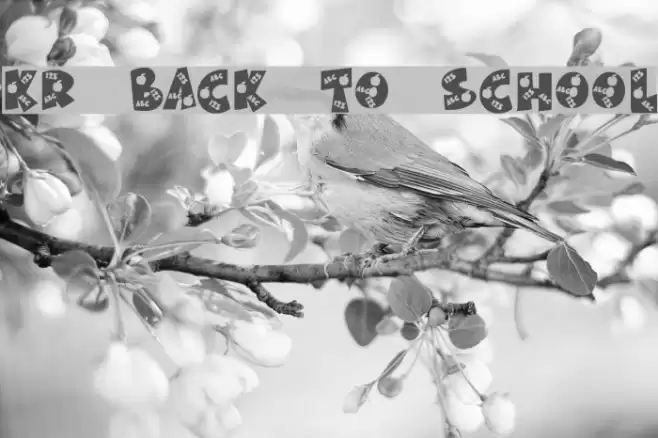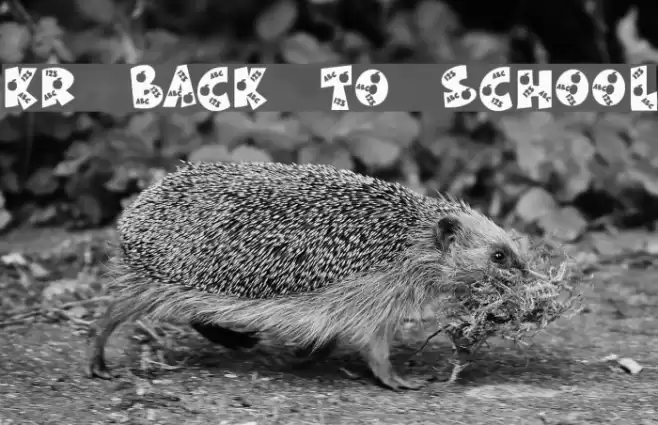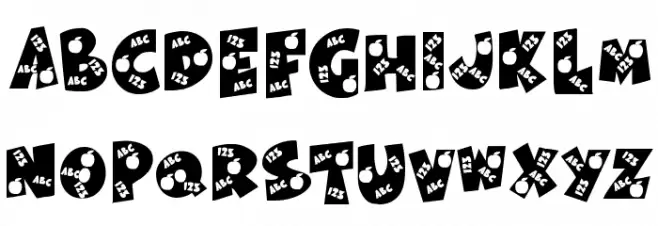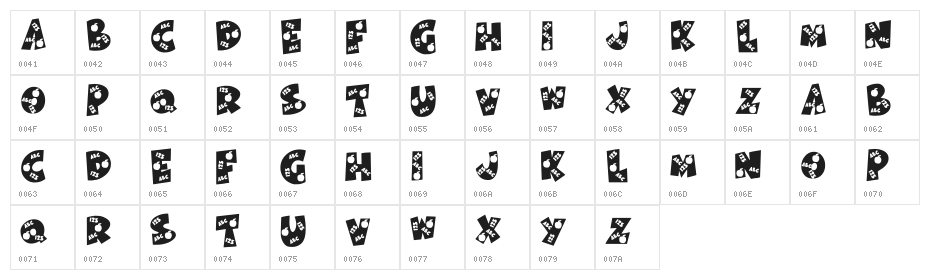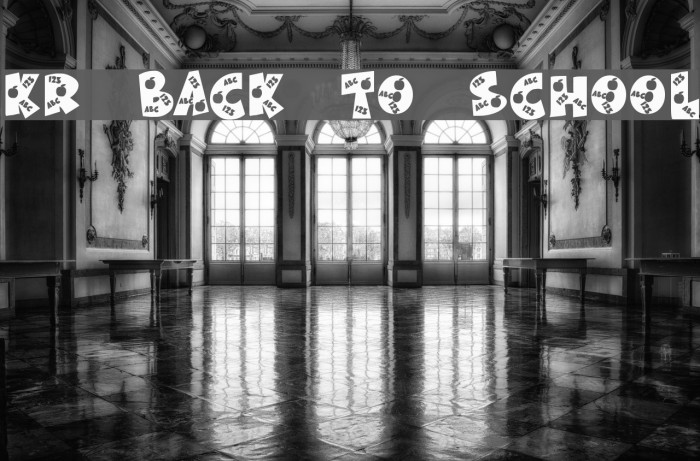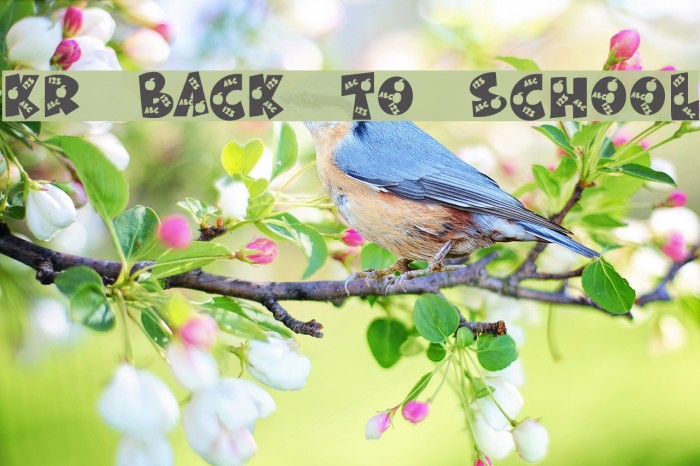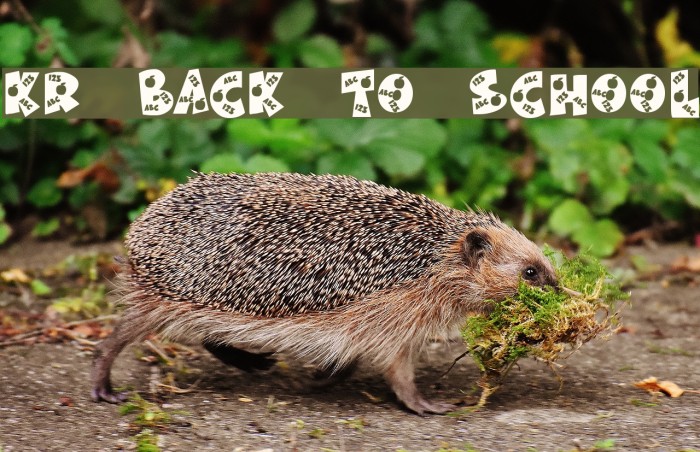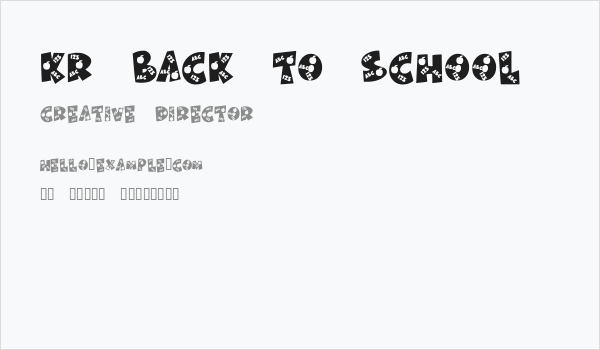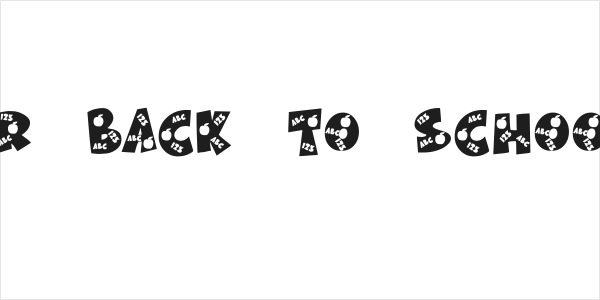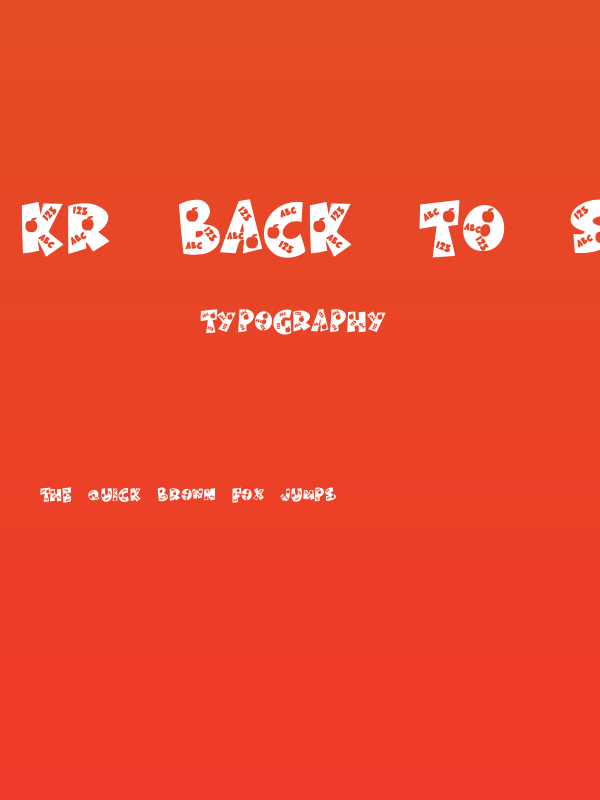
KR Back To School Font
KR Back To School Description
This playful and whimsical font features bold, chunky letters filled with school-themed elements like apples, ABCs, and 123s. Each character is uniquely designed to capture the essence of a fun, educational environment, making it perfect for projects related to children or learning. The letters are slightly irregular in shape, adding to the playful aesthetic, and the internal patterns create a dynamic visual effect. This font is ideal for capturing attention and conveying a sense of creativity and fun.
A playful, school-themed font with bold, chunky letters filled with educational elements from Uncategorized fonts.
- Proposed Projects: Ideal for children's book covers, educational posters, school event flyers, and playful branding projects.
- Overall Style: Playful, Educational